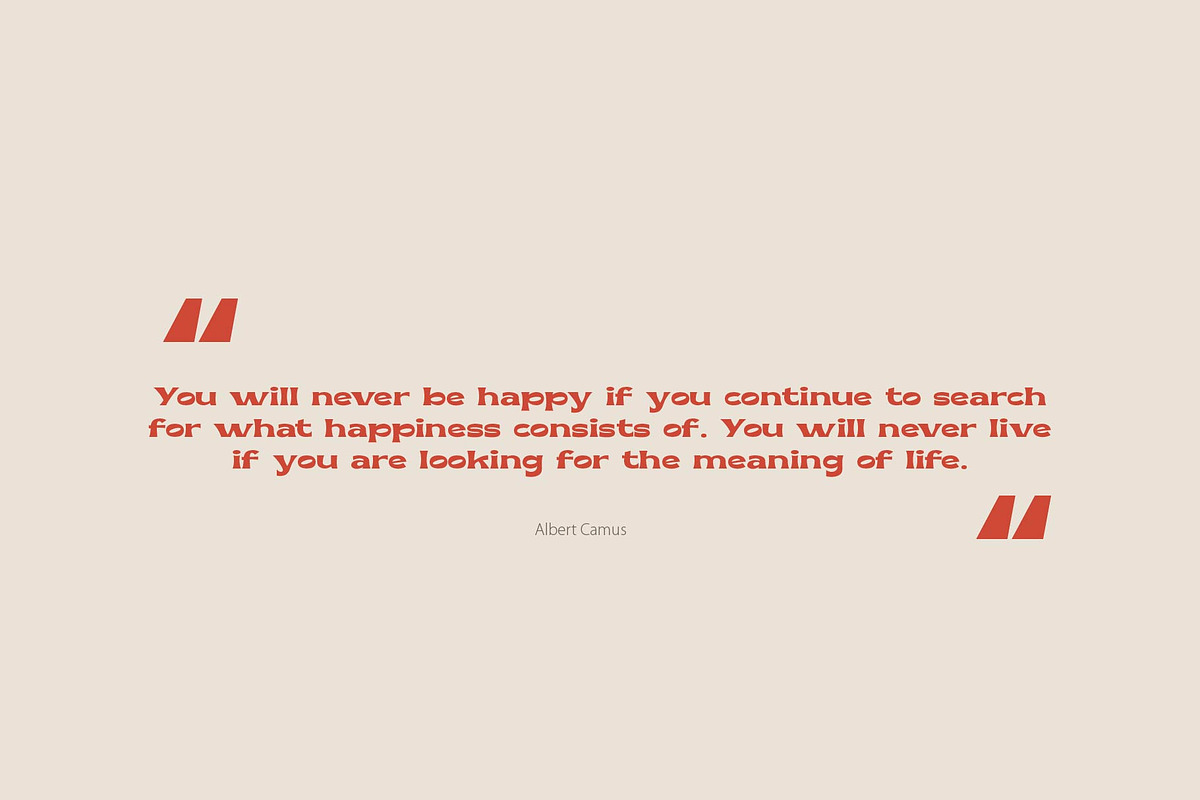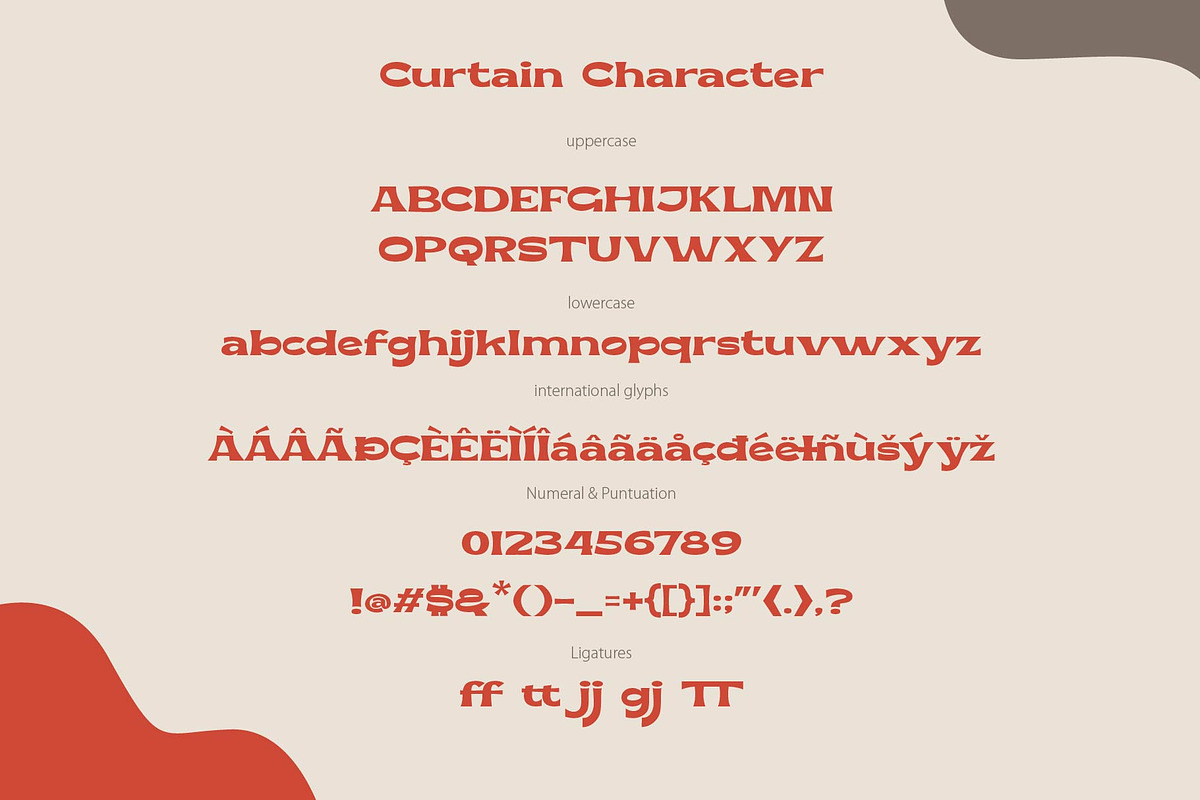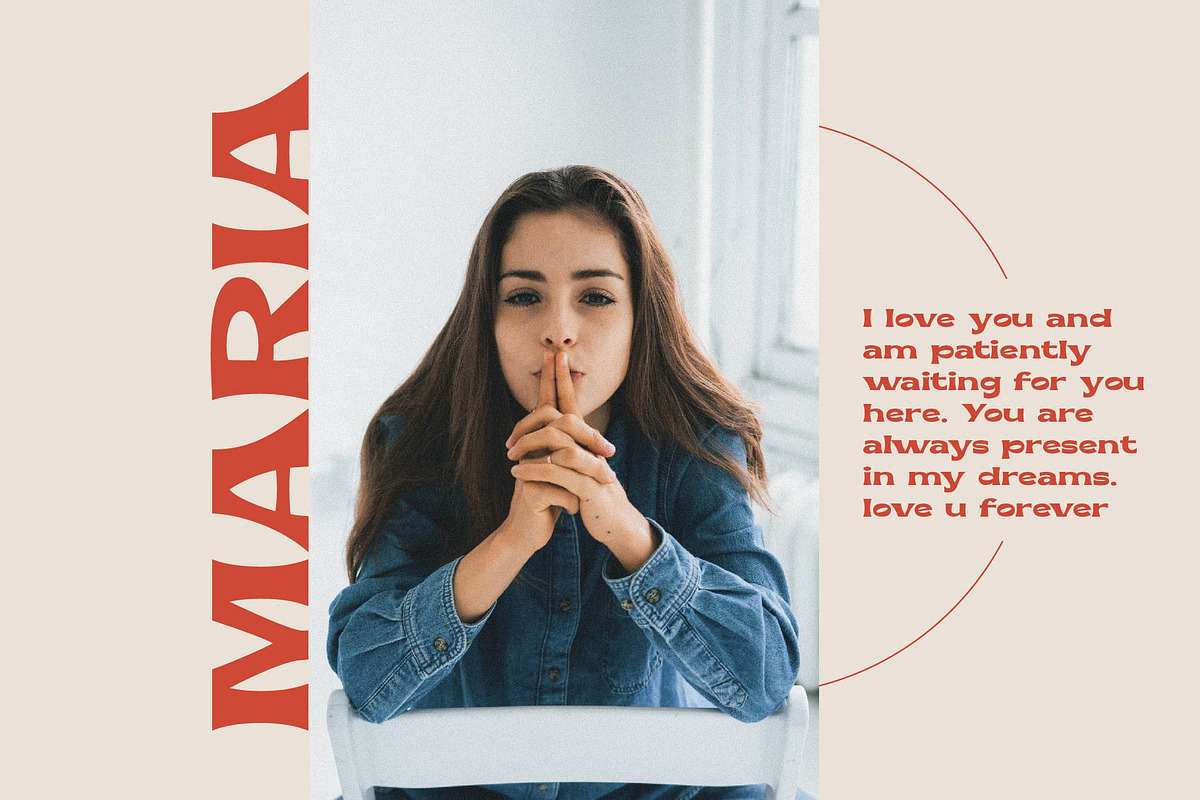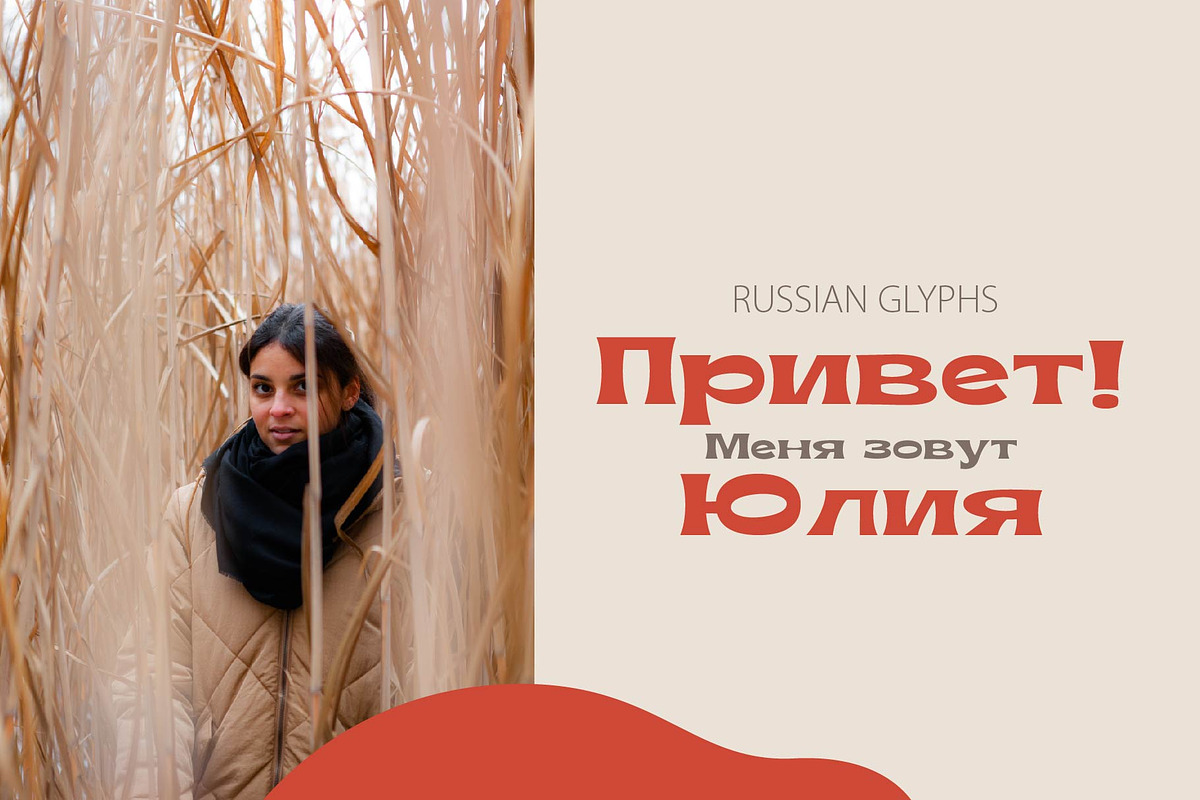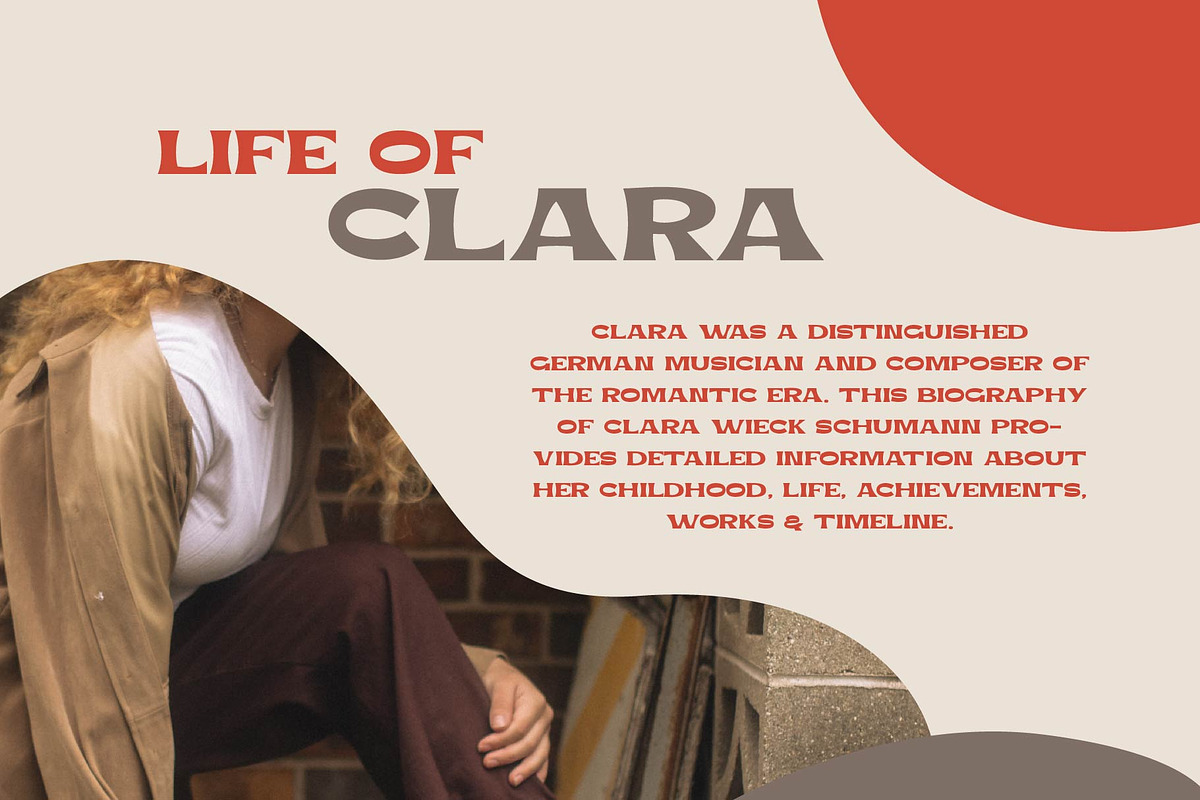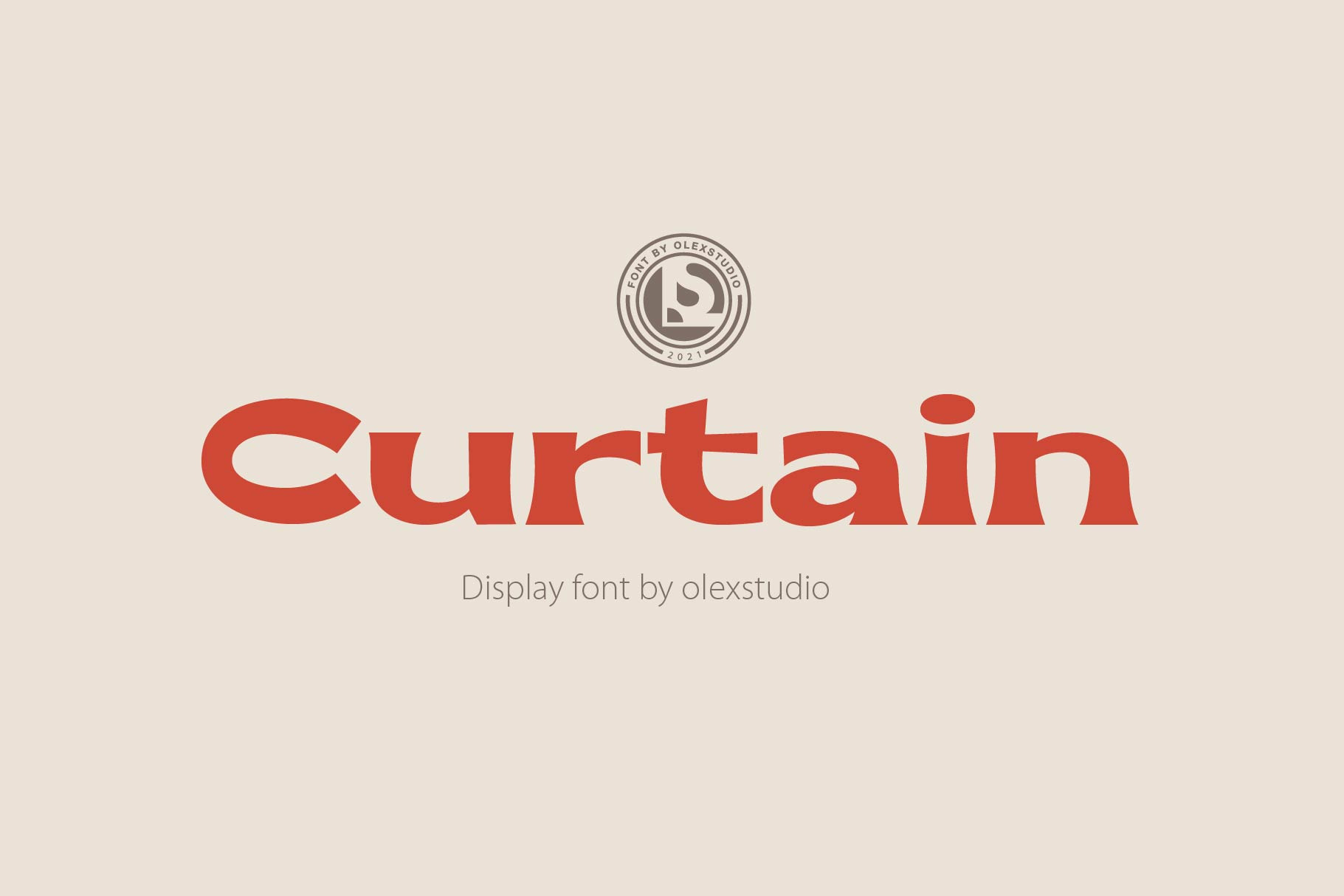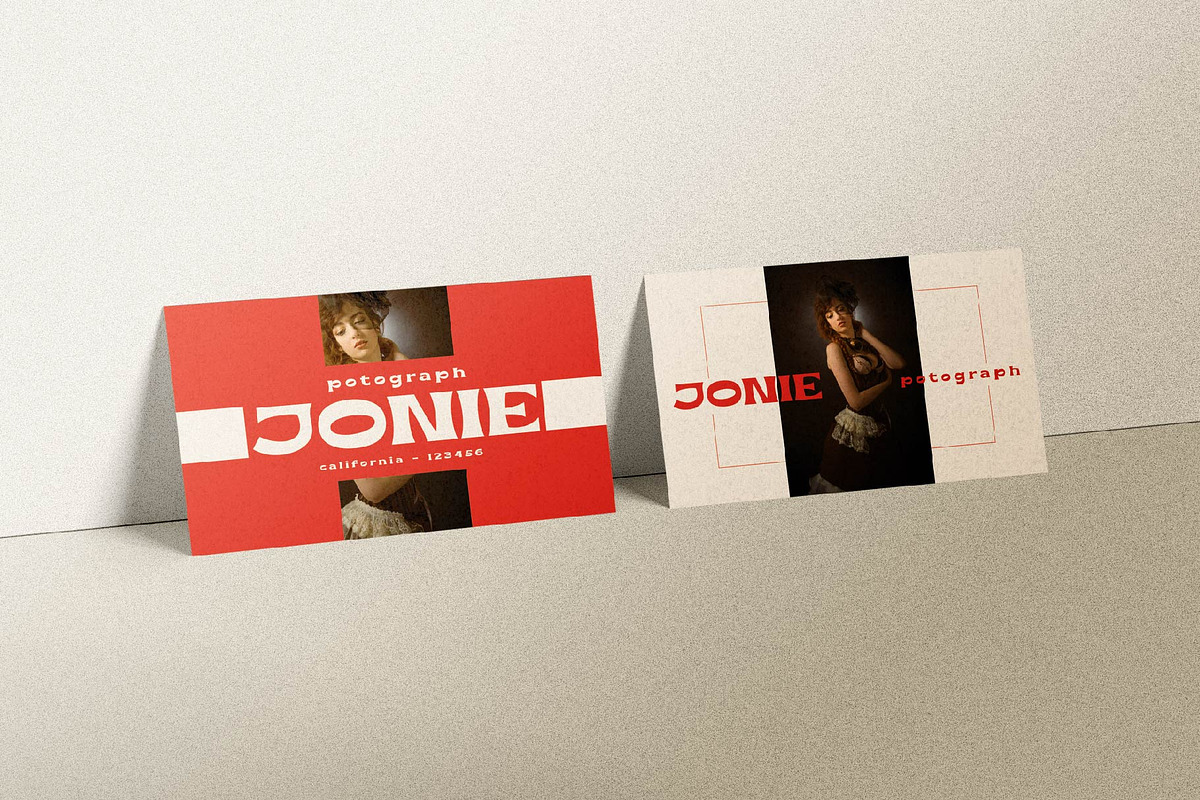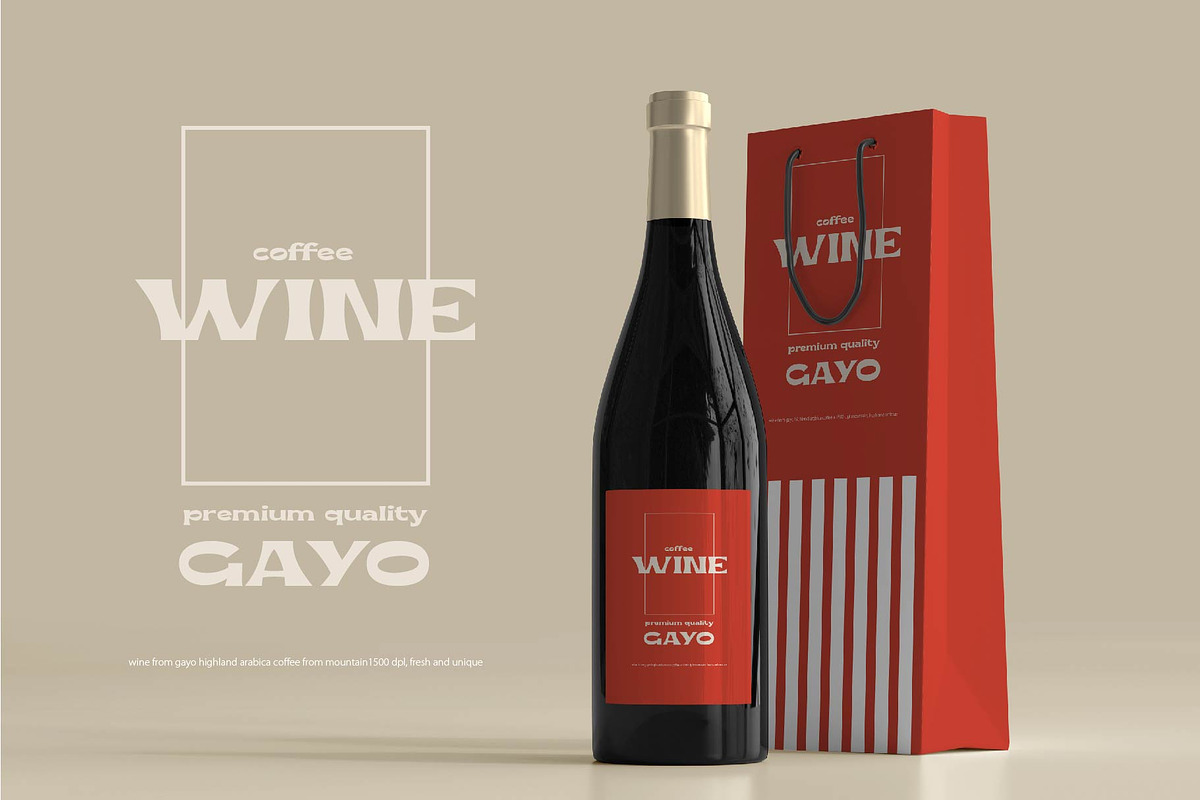
CURTAIN - Display Font
CURTAIN - Display font will look gorgeous on all your designs, invitation, poster design, book design, branding materials, logo's, t-shirt and all project design other.
CURTAIN - Display font contains standard characters, Lowercase, Uppercase, numbers, punctuation, ligatures and international glyphs. You will receive OTF, TTF files & WEBFONT.